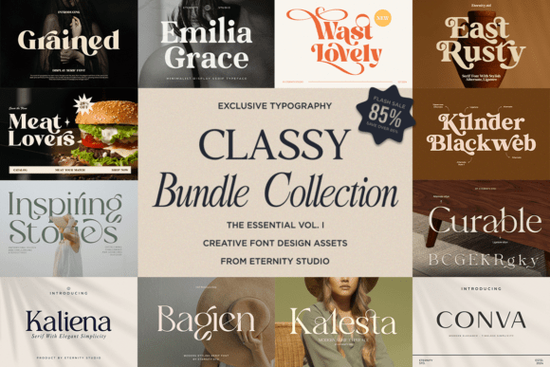
Finding the right typography that balances vintage charm with modern elegance can be tricky when you are working on multiple client projects. The Classy Bundle Vol. I Font collection solves this by pairing nostalgic retro display styles with refined serif and script options. Whether you are designing a logo for a local bakery or creating packaging for a new skincare line, having these versatile typefaces in your library saves you hours of searching for the perfect match.
What makes this font bundle different from others?
Many font packs focus entirely on one style, leaving you to buy another pack when the project requires a different vibe. This collection bridges that gap. It includes a mix of beautiful serif and script typefaces alongside bold retro display options. This means you can create a cohesive brand identity for a client using a vintage-inspired headline paired with a clean, elegant body text, all without leaving your design software.
How do you use these styles in real projects?
The real value of a good typography pack shows up when you start applying it to actual layouts. If you are working on a wedding invitation, the elegant scripts provide a romantic, high-end feel. For a craft beer label or a coffee shop poster, the retro display letters bring immediate character and warmth. You can also mix and match within the same project. Imagine a boutique hotel branding package where the logo uses a classy serif, the website headers use the retro display font, and the welcome emails use a clean script for signatures. The versatility here means one purchase covers multiple touchpoints of a brand identity. You can easily search for more specific styles like the Classy Bundle Vol. I to see how other creators are pairing these letters in their mockups.
- Pair contrasting weights: Use a heavy retro display font for the main headline and a lighter, elegant serif for the subtitle to create visual hierarchy.
- Check the ligatures: Many script fonts include built-in ligatures. Turn on the OpenType features in your software to see the natural, flowing connections between letters.